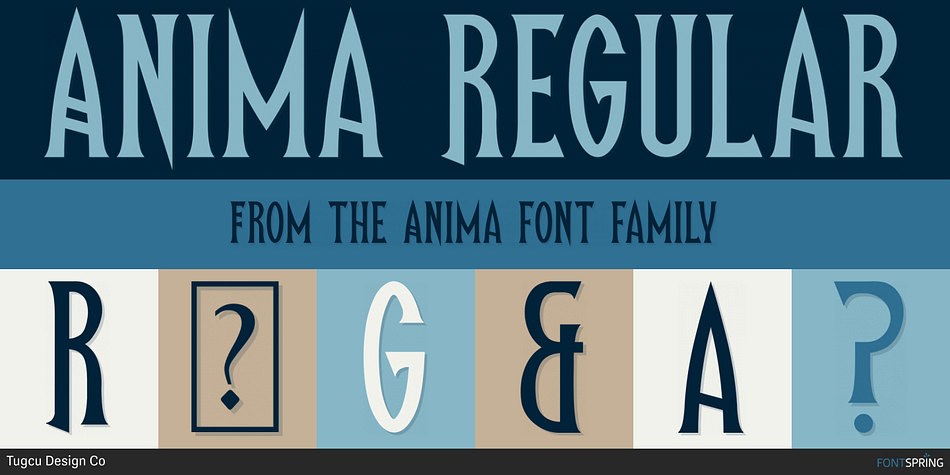
Anima Regular
Anima is a display serif font family. This typeface has three styles and was published by Tugcu Design Co.
Anima is a tall and sharp font family with three distinct styles.